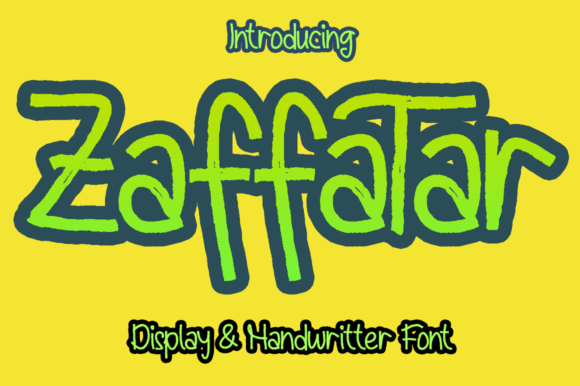
Indulge in the world of ZaffaTar, a captivating script font that whispers a magical charm! This handwritten beauty, crafted by the skilled hands of Bongkeng Art, is a masterpiece designed to transform your creative visions into extraordinary realities. Its playful and quirky nature invites you to unleash your imagination, crafting logos, branding, and posters that exude a touch of whimsy. Embark on a creative journey with ZaffaTar, where your words dance with grace and personality.
Embrace the allure of hand-lettered tattoos that whisper tales on your skin. ZaffaTar's brush strokes emulate the artistry of skilled tattoo artists, allowing you to create designs that capture the essence of self-expression. From intricate tribal motifs to delicate swirls, ZaffaTar empowers you to express your uniqueness with undeniable style.
Step into a world of endless possibilities with ZaffaTar. Its versatility knows no bounds, effortlessly adapting to a myriad of creative endeavors. Whether you seek to craft eye-catching social media posts, design enchanting invitations, or create stunning website headers, ZaffaTar's charm will leave an unforgettable mark. Embrace the power of this font and watch your creations blossom with personality and flair.